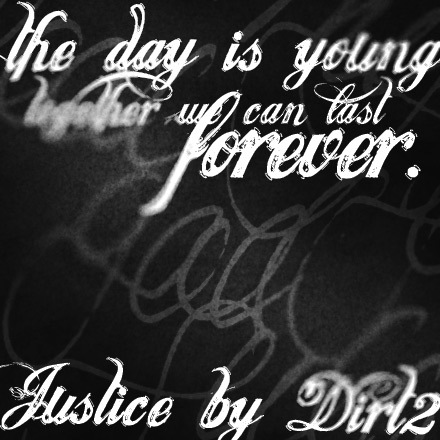
Justice by Dirt2 is a free distressed calligraphic script with dramatic capitals, tightly woven flourishes, and oversized loops extending beyond the main letter shapes. Scratches and broken patches give the formal strokes a weathered edge.
Alternative fashion labels or tattoo studios could use it for branding that mixes elegance with abrasion. Its tangled swashes also suit rock posters, album packaging, and event merchandise, where the lettering can become an illustrated emblem rather than ordinary text.